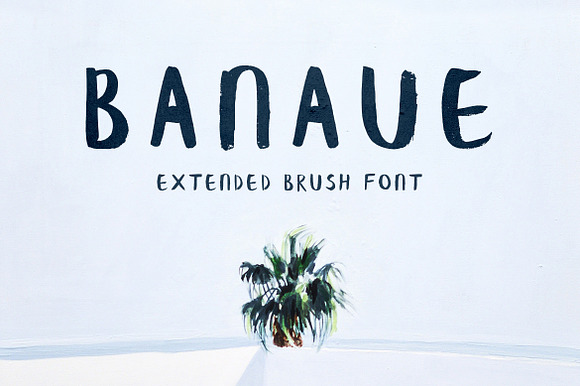
Banaue Extended Brush Font
Banaue Extended Brush Font is perfect for cultural branding, heritage tourism materials, artistic portfolios, handcrafted product labels, traditional craft workshops, cultural festival posters, indigenous art projects, authentic restaurant signage, cultural heritage museums, artisan market displays, ethnographic publications, and traditional storytelling materials.
What makes Banaue Extended Brush Font exciting is its cultural authenticity that captures the rich heritage and artistic tradition of indigenous craftsmanship through extended brush strokes that honor ancestral artistic techniques and cultural storytelling. This remarkable typeface embodies the essence of cultural preservation and artistic heritage, combining traditional brush painting methods with extended proportions that create powerful visual impact while resonating with audiences seeking authentic cultural experiences and connection to ancestral wisdom. The font's extended character and organic variations provide maximum cultural presence while maintaining the readability essential for contemporary applications that celebrate traditional artistry. Its heritage personality makes it perfect for brands that want to communicate cultural respect, authenticity, and the transformative power of indigenous artistic traditions.
The Banaue Extended Brush Font family includes regular and bold weights, featuring extended cultural alternates, traditional ligatures, and heritage-inspired flourishes. The character set incorporates cultural symbols, traditional numerals, and authentic punctuation marks that enhance the font's heritage character and provide designers with comprehensive cultural typography solutions for respectful brand expressions with extended visual impact.